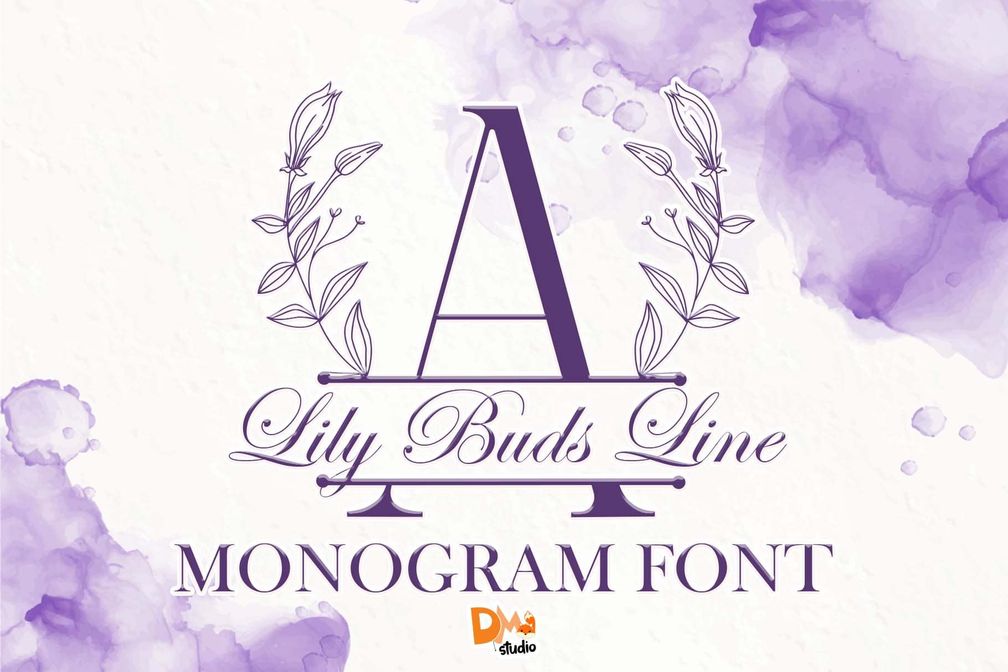
Lily Buds Line Monogram
Lily Buds Line Monogram – Elegant Floral Monogram Font
Lily Buds Line Monogram is a delicate and beautifully designed monogram font featuring intricate lily bud motifs. This graceful typeface is ideal for wedding invitations, luxury branding, personalized stationery, elegant packaging, and artistic designs. Its refined floral aesthetic adds a timeless charm to any creative project.
✔ Intricate Lily Bud Design – Each letter is adorned with elegant hand-drawn floral details.
✔ Perfect for Elegant & Botanical Themes – Ideal for weddings, branding, invitations, and nature-inspired designs.
✔ Monogram Style Typeface – Designed for stylish initials and decorative typography.